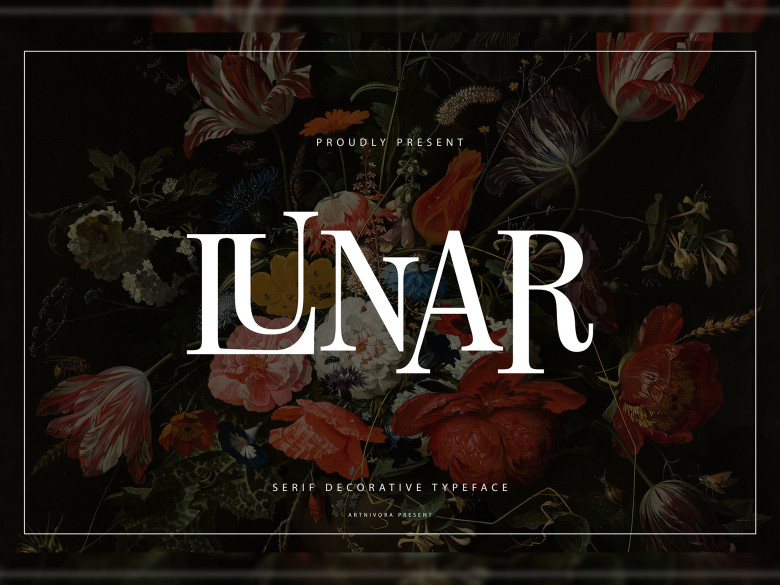
Lunar Font
Lunar features an elegant and sophisticated appearance with its sophisticated serif font design. Lunar’s classic lines and distinct serifs add timeless beauty to any design; making Lunar an excellent choice for modern invitations, headlines and branding materials.
Lunar Serif Font